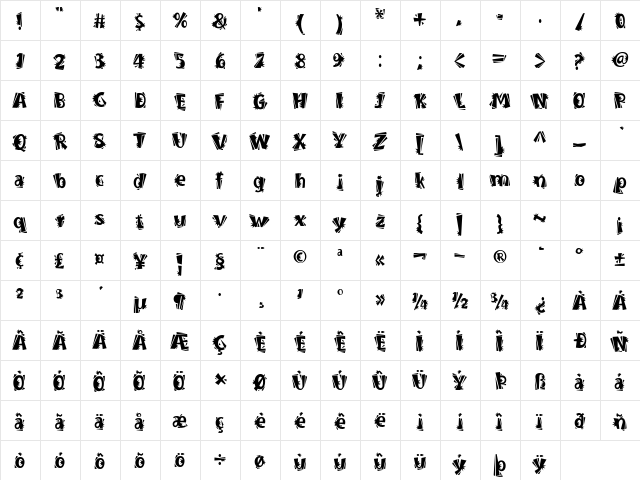
Burweed ICG Thorny Regular
Design Context for Burweed ICG Thorny Typeface
Burweed ICG Thorny is a composed and adaptable typeface that performs quietly and consistently across a wide range of design contexts.